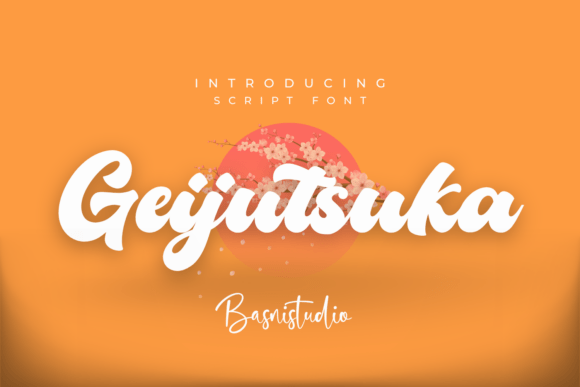
Geijutsuka Font: Unleash Your Creativity with this Bold and Stylish Script Font
In the world of typography, fonts play a crucial role in conveying messages, expressing emotions, and creating a lasting impression. With the numerous font options available, it can be challenging to find the perfect one that embodies your brand’s personality and style. However, if you’re looking for a font that exudes confidence, attitude, and boldness, look no further than the Geijutsuka Font. In this article, we’ll introduce you to the Geijutsuka Script Font, its features, and its versatility in various design applications.
What is Geijutsuka Font?
Geijutsuka is a carefully crafted script font designed to make your message unforgettable. It’s not just a font; it’s an attitude in every curve, confidence in every letter. 🖋️ With its sharp, stylish, and unapologetically bold design, Geijutsuka is perfect for making a statement. Whether you’re a designer, artist, or business owner, this font is sure to elevate your creative projects and leave a lasting impression on your audience.
Design Features of Geijutsuka Script Font
The Geijutsuka Script Font boasts several design features that make it stand out from other fonts. Some of its notable features include:
- Bold and Stylish Design: Geijutsuka’s bold and stylish design makes it perfect for posters, headlines, branding, and more.
- Sharp Lines and Curves: The font’s sharp lines and curves give it a confident and fearless look that’s sure to grab attention.
- Unique Letterforms: Each letterform in Geijutsuka is carefully crafted to convey a sense of attitude and style.
Perfect for Various Design Applications
Geijutsuka Script Font is versatile and can be used in various design applications, including:
- Posters and Flyers: Create eye-catching posters and flyers that grab attention with Geijutsuka’s bold and stylish design.
- Headlines and Titles: Use Geijutsuka to create bold and attention-grabbing headlines and titles for your blog posts, articles, and social media content.
- Branding and Logo Design: Establish a strong brand identity with Geijutsuka’s confident and fearless design.
- Advertising and Marketing Materials: Make your advertising and marketing materials stand out with Geijutsuka’s unique and stylish design.
Tips for Using Geijutsuka Script Font
In conclusion, Geijutsuka Script Font is a bold and stylish font that’s perfect for making a statement. With its sharp lines, confident curves, and unique letterforms, it’s sure to elevate your creative projects and leave a lasting impression on your audience. Whether you’re a designer, artist, or business owner, Geijutsuka is a versatile font that can be used in various design applications. So, why settle for an ordinary font when you can make your message unforgettable with Geijutsuka? ✨